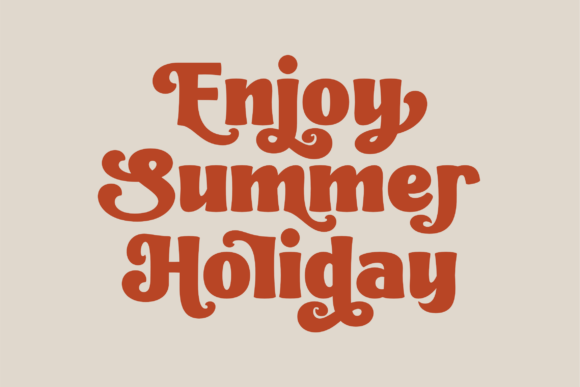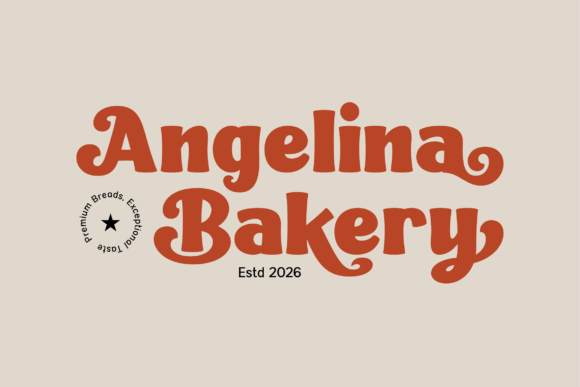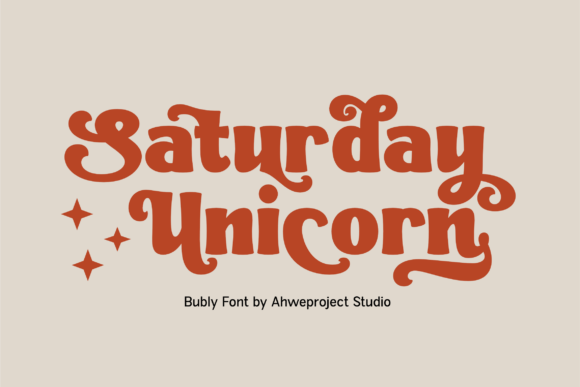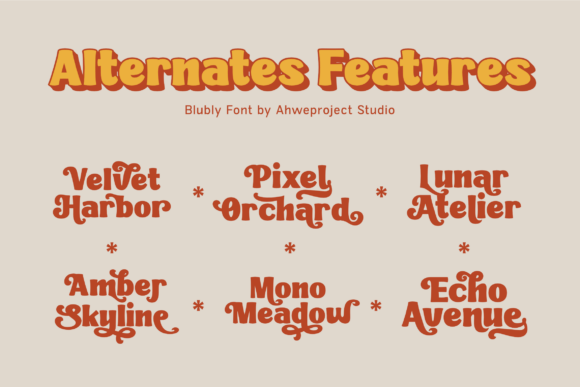
Introducing Blubly Font: The Ultimate Retro Serif Font for Creative Projects
Are you looking for a font that can add a touch of nostalgia and personality to your designs? Look no further than Blubly, a bold retro serif font inspired by vintage signage, groovy aesthetics, and nostalgic typography from the golden era. With its chunky letterforms, playful curves, and eye-catching style, Blubly brings warmth, personality, and timeless charm to any creative project.
The Inspiration Behind Blubly
Blubly is a font that pays homage to the classic typography of the past, while still feeling fresh and modern. Its design is influenced by the iconic signage and graphics of the 1960s and 1970s, with a bold and playful twist. The result is a font that is both nostalgic and fun, perfect for designers and crafters who want to add a touch of retro flair to their work.
Key Features of Blubly
So, what makes Blubly such a great font for creative projects? Here are just a few of its key features:
- Uppercase & Lowercase: Blubly includes both uppercase and lowercase letters, making it perfect for a wide range of design applications.
- Numbers & Punctuation: The font also includes numbers and punctuation marks, ensuring that you have everything you need to create professional-looking designs.
- Multilingual Support: Blubly supports multiple languages, making it a great choice for designers who work with international clients or want to create designs for a global audience.
- Stylistic Alternates: The font includes stylistic alternates, which allow you to add even more personality and flair to your designs.
Perfect for Retro & Vintage Designs
Blubly is a font that is specifically designed for use in retro and vintage-inspired designs. Its bold, playful style is perfect for:
- Posters: Create eye-catching posters that grab attention and make a statement.
- Branding: Use Blubly to create a bold and memorable brand identity that sets your business apart.
- Packaging: Add a touch of retro flair to your product packaging and make it stand out on store shelves.
- Logos: Create a bold and eye-catching logo that showcases your brand’s personality.
- Merchandise: Use Blubly to create fun and playful designs for t-shirts, mugs, and other merchandise.
- Café Designs: Create a retro-inspired atmosphere in your café or restaurant with Blubly’s bold and playful typography.
- Music Covers: Use Blubly to create eye-catching music covers that showcase the personality of your music.
- Social Media Graphics: Create bold and engaging social media graphics that grab attention and drive engagement.
- Retro-Themed Projects: Blubly is perfect for any project that requires a retro or vintage feel, from graphic designs to craft projects.
Bringing Back the Nostalgic Feel
Blubly is more than just a font – it’s a way to bring back the nostalgic feel of the past and add a touch of personality to your designs. With its bold, playful style and carefully crafted characters, Blubly makes every word feel bold, fun, and full of character.
Creating Memorable Designs
So, how can you use Blubly to create memorable designs? Here are a few tips:
- Experiment with different colors and textures: Add depth and interest to your designs by experimenting with different colors and textures.
- Play with typography: Use Blubly’s stylistic alternates and bold, playful style to create unique and eye-catching typography.
- Add illustrations and graphics: Use Blubly in combination with illustrations and graphics to create designs that are truly memorable.
In conclusion, Blubly is a bold retro serif font that is perfect for designers and crafters who want to add a touch of nostalgia and personality to their designs. With its chunky letterforms, playful curves, and eye-catching style, Blubly brings warmth, personality, and timeless charm to any creative project. Whether you’re creating posters, branding, packaging, or retro-themed projects, Blubly is the perfect font for you.